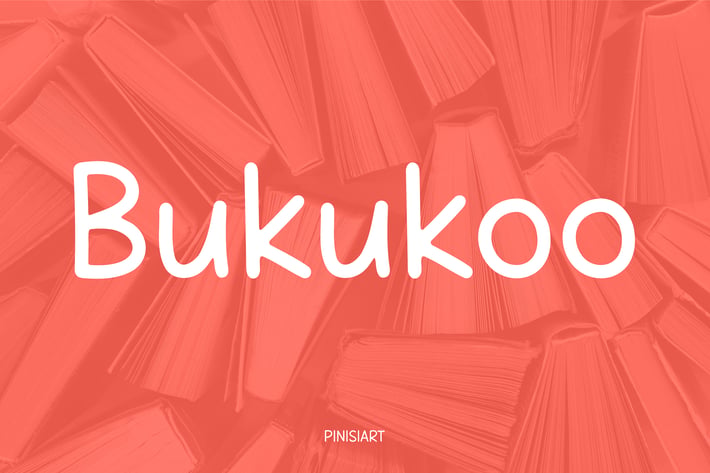
Body Text Font - Bukukoo
Bukukoo – The Friendly, Readable Font for Children's Books & Body Text
Bukukoo is a warm, inviting sans-serif designed for effortless readability in children’s books, storytelling, and comfortable body text. With its gentle curves and smooth letterforms, this font ensures an engaging reading experience—whether for picture books, young reader novels, or long-form content.
Designed for Clear & Engaging Storytelling
Bukukoo’s balanced proportions and natural flow make reading easy for all ages. Perfect for authors, educators, and publishers, this font helps bring stories to life with a playful yet professional touch.
Key Features:
Optimized for Body Text – Designed for longer reading sessions without strain.
Gentle, Rounded Letterforms – Soft and inviting, perfect for young readers.
Perfect for Children's Books – Adds warmth and approachability to storytelling.
Great for Print & Digital – Works flawlessly in books, eBooks, and educational materials.
Bukukoo isn’t just a font—it’s an invitation to read, learn, and explore! Elevate your children's books and editorial designs with a font made for storytelling.